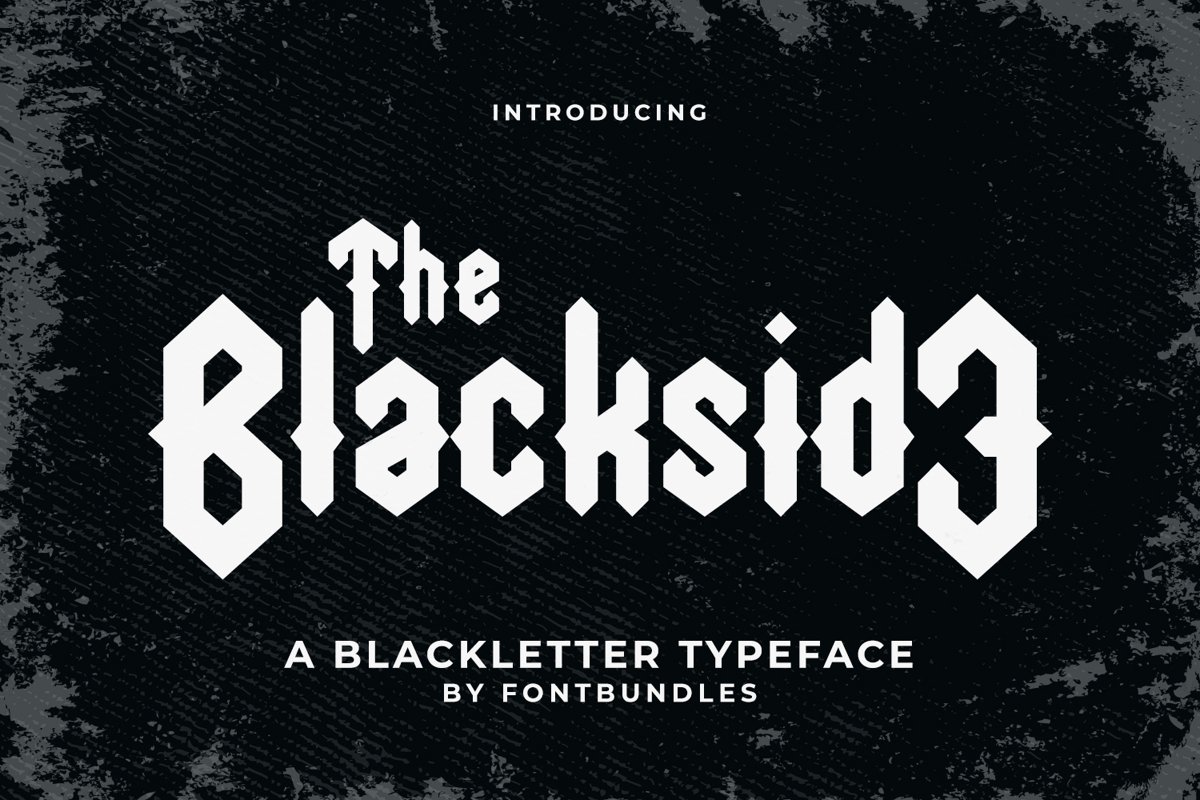
Blackside
The Blackside is a black letters. Perfect for display, logo, logotype, badges, emblem, quotes, business card, t-shirt, branding, packaging, merchandise, and many more.